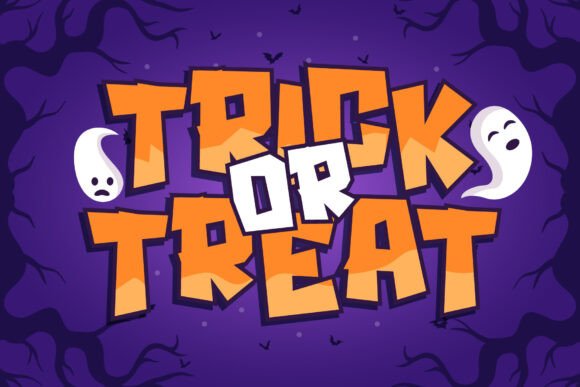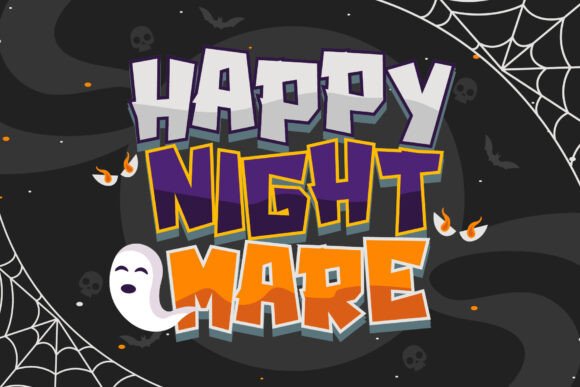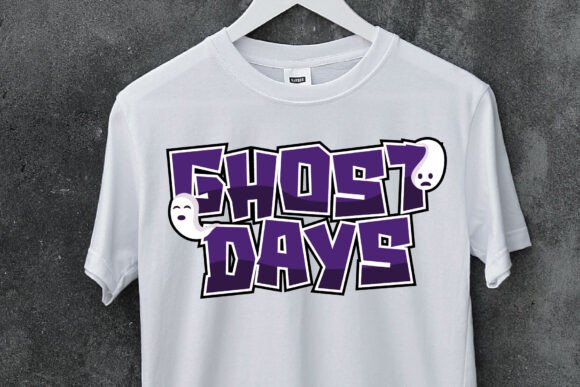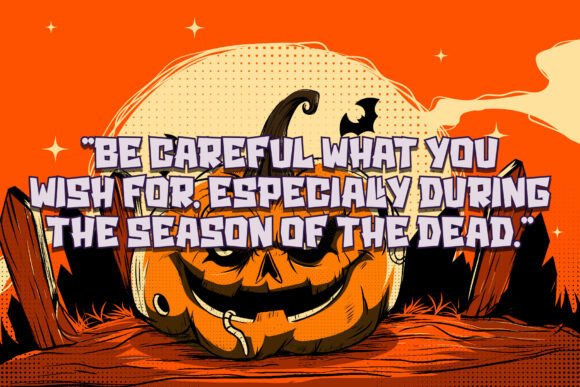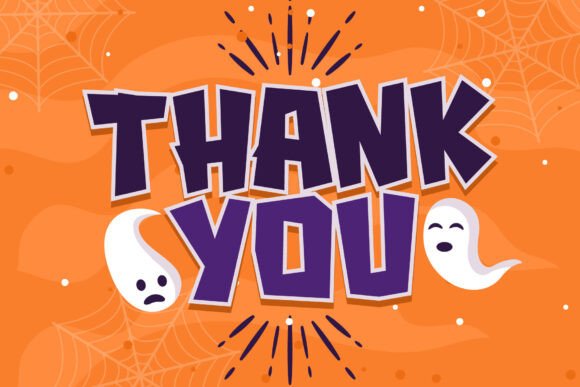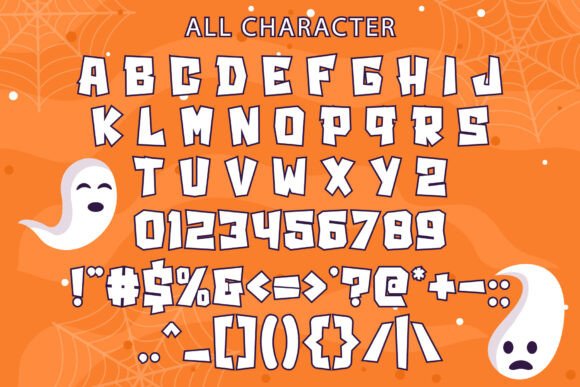
Introduction to Comic Halloween Font
Comic Halloween is a Halloween-themed display font that will make your designs look classic, mysterious, horror, and spooky.
It is a great font for events, Halloween, logos, branding, social media posts, but it also works great for other projects Add it to any of your creative projects, and it will give them a scary and gripping payoff.
Key Features of Comic Halloween Font